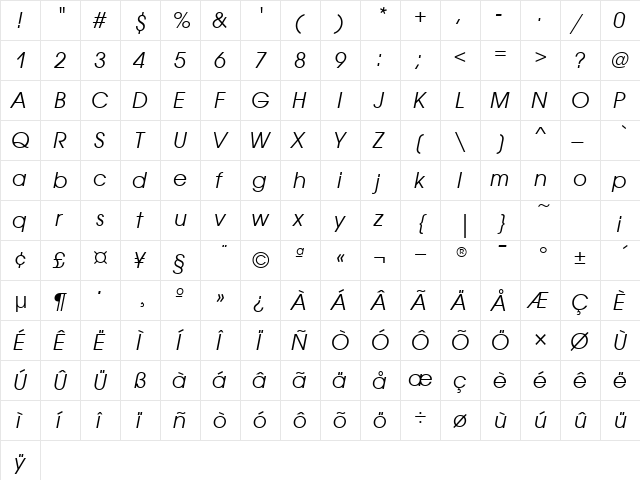
AvantGardeITCTT BookOblique
| Foundry | International Typeface Corporation |
| Designer | Herb Lubalin/Tom Carnase |
Design Context for AvantGardeITCTT Typeface
AvantGardeITCTT is a composed and adaptable typeface that performs quietly and consistently across a wide range of design contexts. The dynamic lean of this cut emphasises speed and emphasis in any layout.